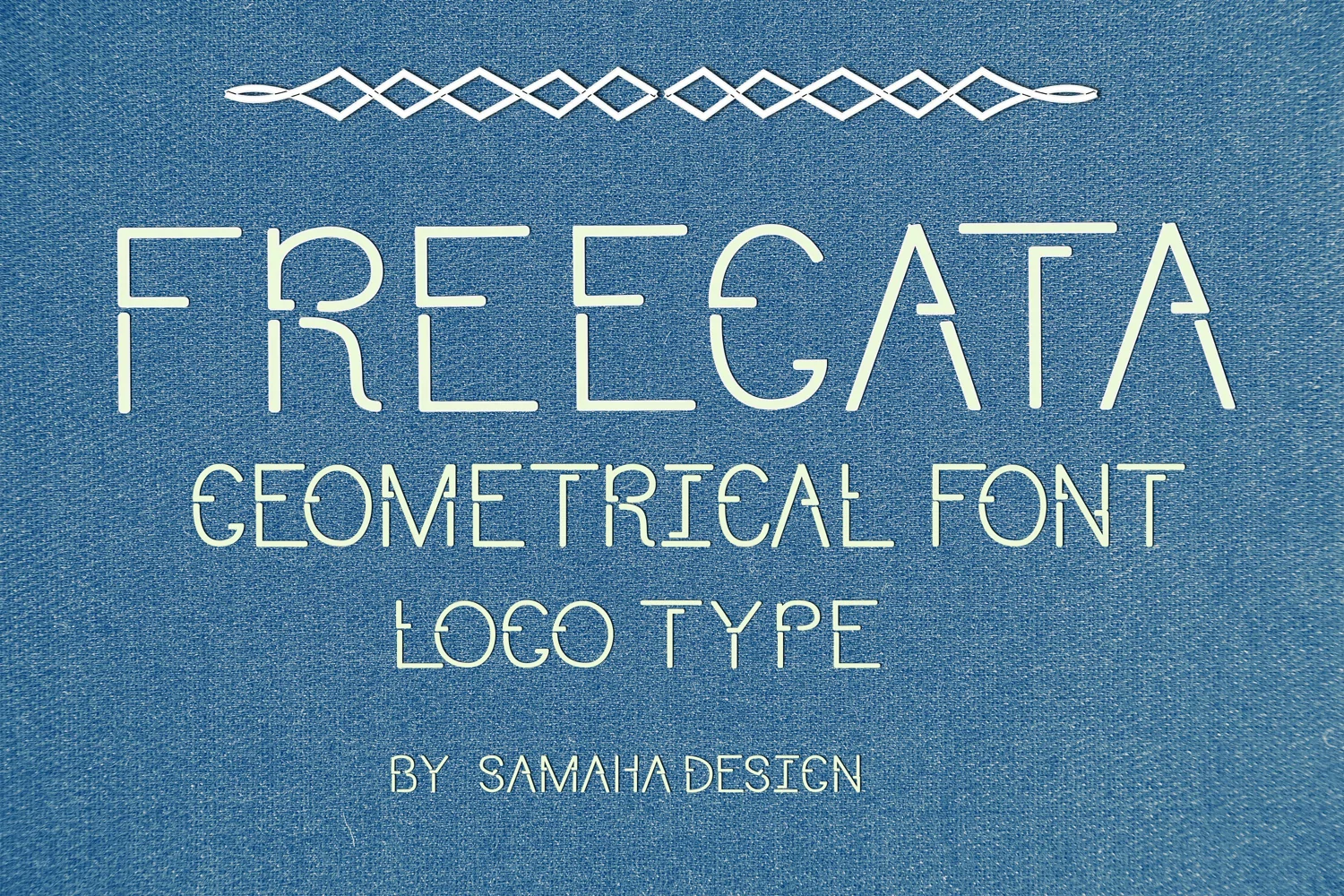
Modern Sans Serif font. FREEGATA - Thin Line Logo Font.
FREEGATA - thin line uppercase font with Geometrical lines.
Modern San Serif Font.
The features is only uppercase. This font is Display font. It is Svg color font.
IT is suitable for feminine business branding, Logo and minimalistic art, social media design. The font works great for craft products branding and packaging (organic cosmetics and food, jewelry, handmade soap ect.)
This Thin Line font, suitable for any projects such as: logos, branding projects, homeware designs, mugs, quotes, posters, shopping bags, t-shirts, book covers, name card, invitation cards, greeting cards, label, photography, watermark, special events, and all your other projects that need a beautiful font taste.